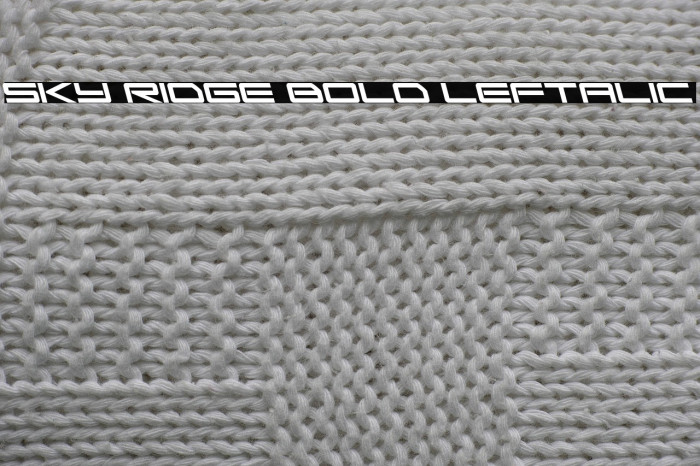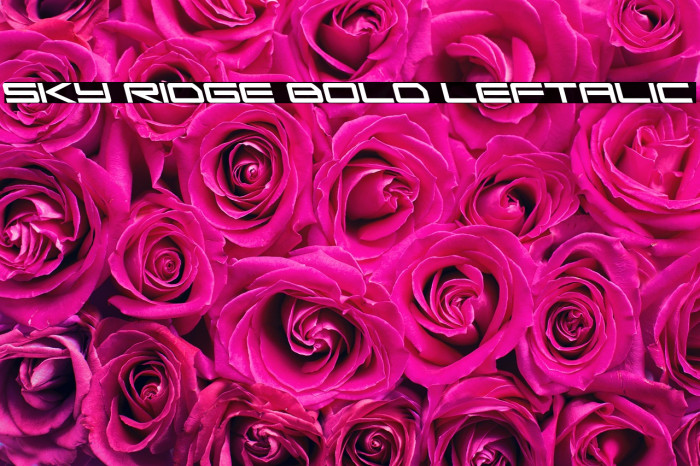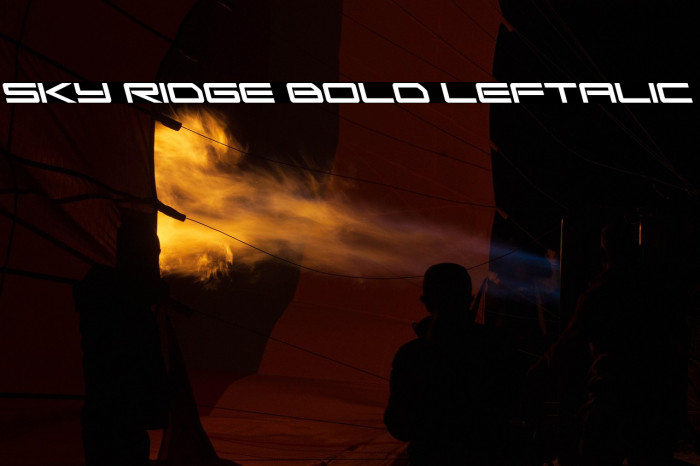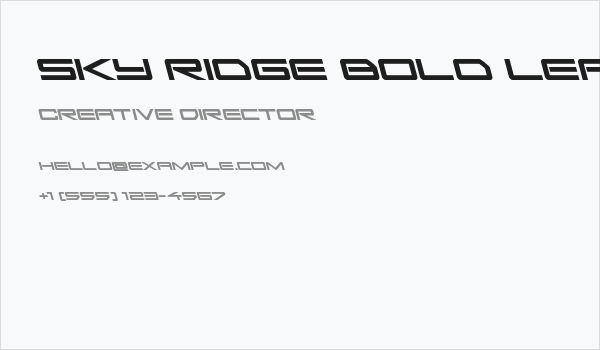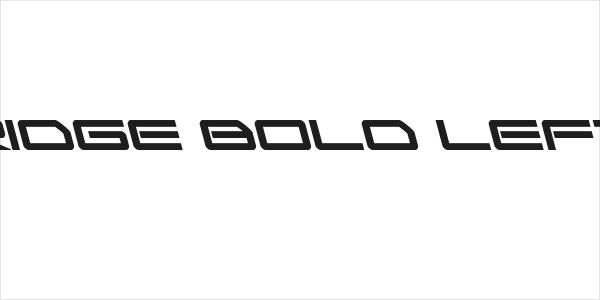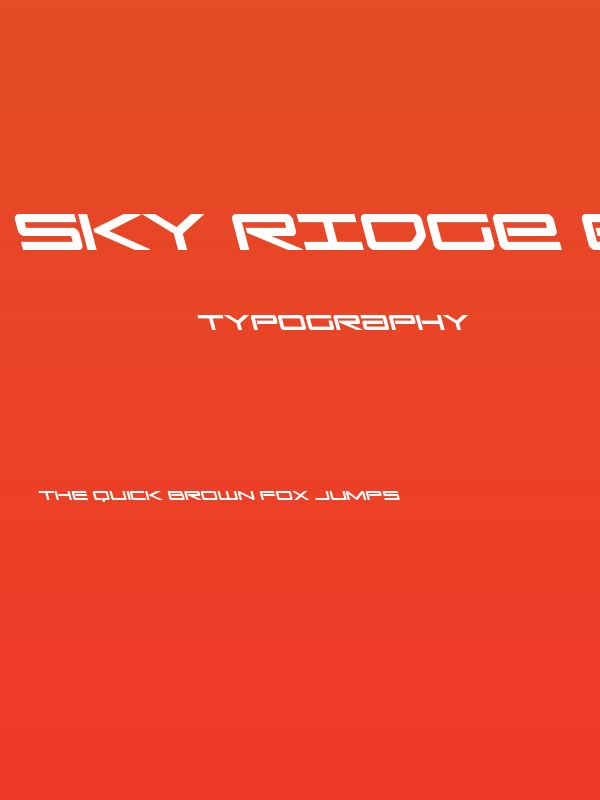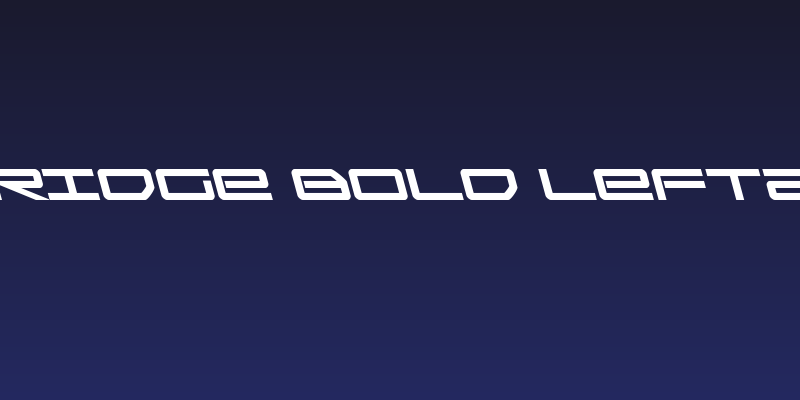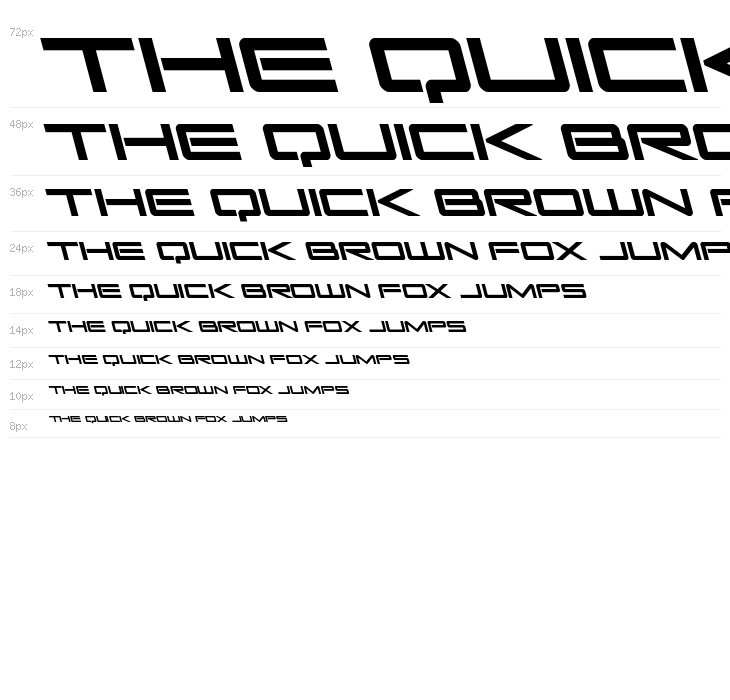
Sky Ridge Bold Leftalic Font
This font features a futuristic and angular design, characterized by its bold and geometric letterforms. The characters exhibit a distinct slant to the left, giving them a dynamic and forward-moving appearance. The strokes are thick and consistent, with sharp edges and a mechanical feel. The uppercase and lowercase letters maintain a uniform style, while the numerals and special characters complement the overall aesthetic. This font's unique style makes it suitable for projects that require a modern and edgy look.
A bold, futuristic font with angular, left-slanted letterforms.
- Proposed Projects: Ideal for sci-fi themed designs, technology branding, video game titles, and modern posters.